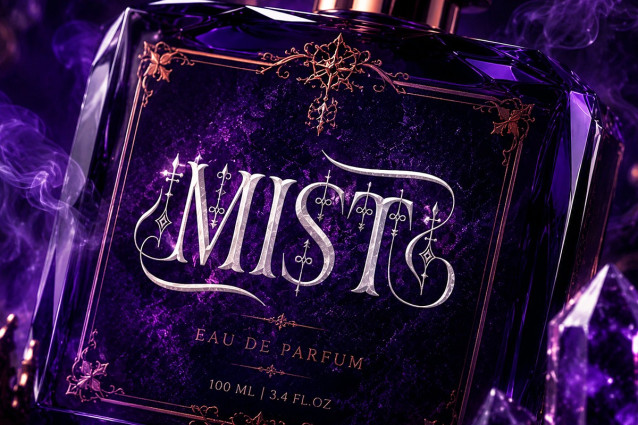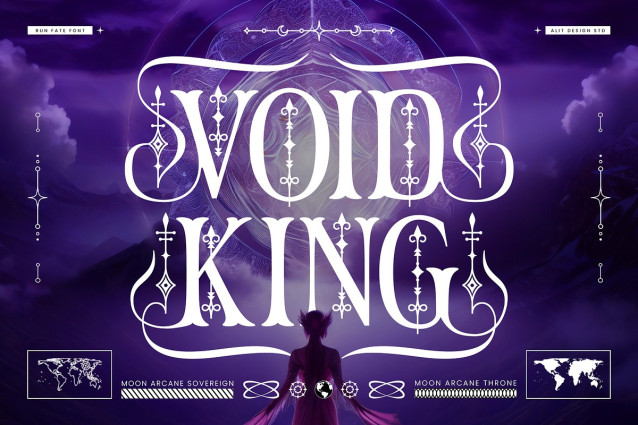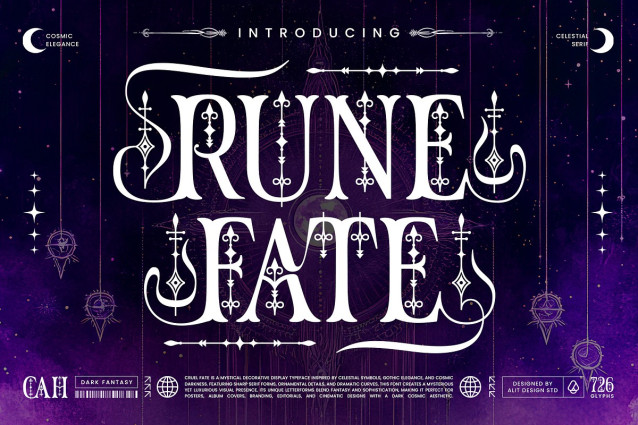
Rune Fate Font
Rune Fate Font a mystical decorative display font that masterfully blends gothic elegance with celestial darkness. Inspired by ancient sorcery, royal magic, and forgotten realms, this typeface is crafted to give your designs a powerful, luxurious, and mysterious visual presence.
Featuring sharp serif forms, dramatic sweeping curves, and intricate ornamental details, Rune Fate creates an atmosphere filled with timeless enchantment. Whether you are designing a high-end mystical brand, a captivating cinematic poster, or dark editorial layouts, this typeface commands attention and evokes a world of sacred prophecies and arcane magic.
Designed with versatility and professional typography in mind, Rune Fate comes packed with an expansive set of characters and stylistic alternates, allowing you to customize your letterforms to perfectly match your creative vision.